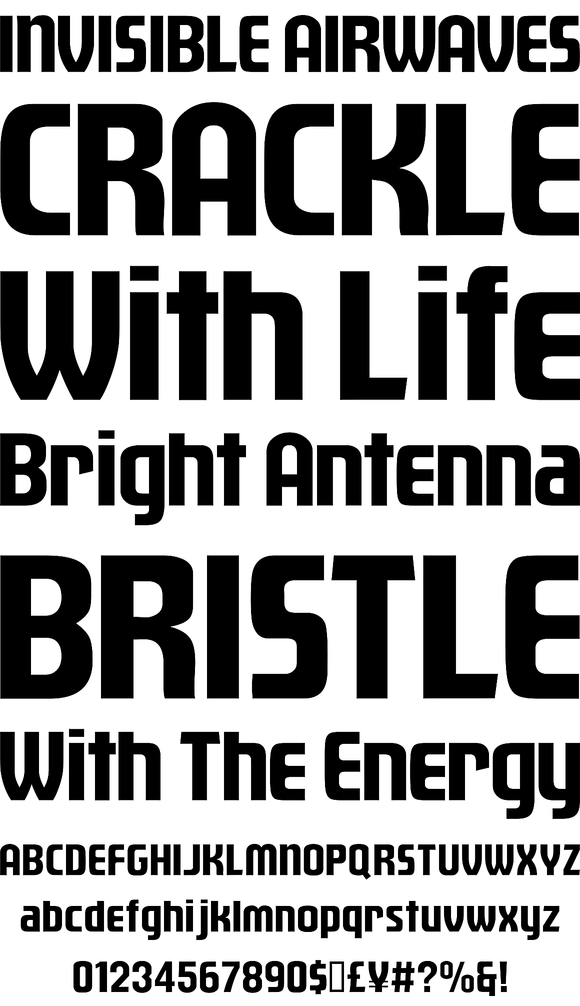
Venus Envy™ is based on a typestyle found on a 1960s grade B movie poster.Each font in the Venus Envy™ family has a full character set of 232+ letterforms, with all characters designed in the style of the font.
Venus Envy™ is based on a typestyle found on a 1960s grade B movie poster.
WHY THE NAME?
Venus Envy™ was a term coined by the legendary planetary adventurer, Spaceman Freud. Through careful studies he learned that planets with very few moons (such as the Earth, which only has one) can tend to be envious of planets which have numerous moons (such as Venus) which has five moons and is the envy of our solar system.
WHAT IS THE S-FACTOR?
The S-factor™ fonts are the same as the regular Venus Envy™ fonts except that alternate "S" and "s" characters have been substituted. The S-factor™ fonts also contains the distinctive alternate "V" and alternate "E" and "F" characters without the rounded edges.
BLACK IS BOLD. BOLD IS BLACK
ALTERNATE CHARACTERS
If you are looking for condensed fonts in the style of Venus Envy™, check out the companion family called Starship Command™.
FULL CHARACTER SET
Each font in the Venus Envy™ family has a full character set of 232+ letterforms, with all characters designed in the style of the font.